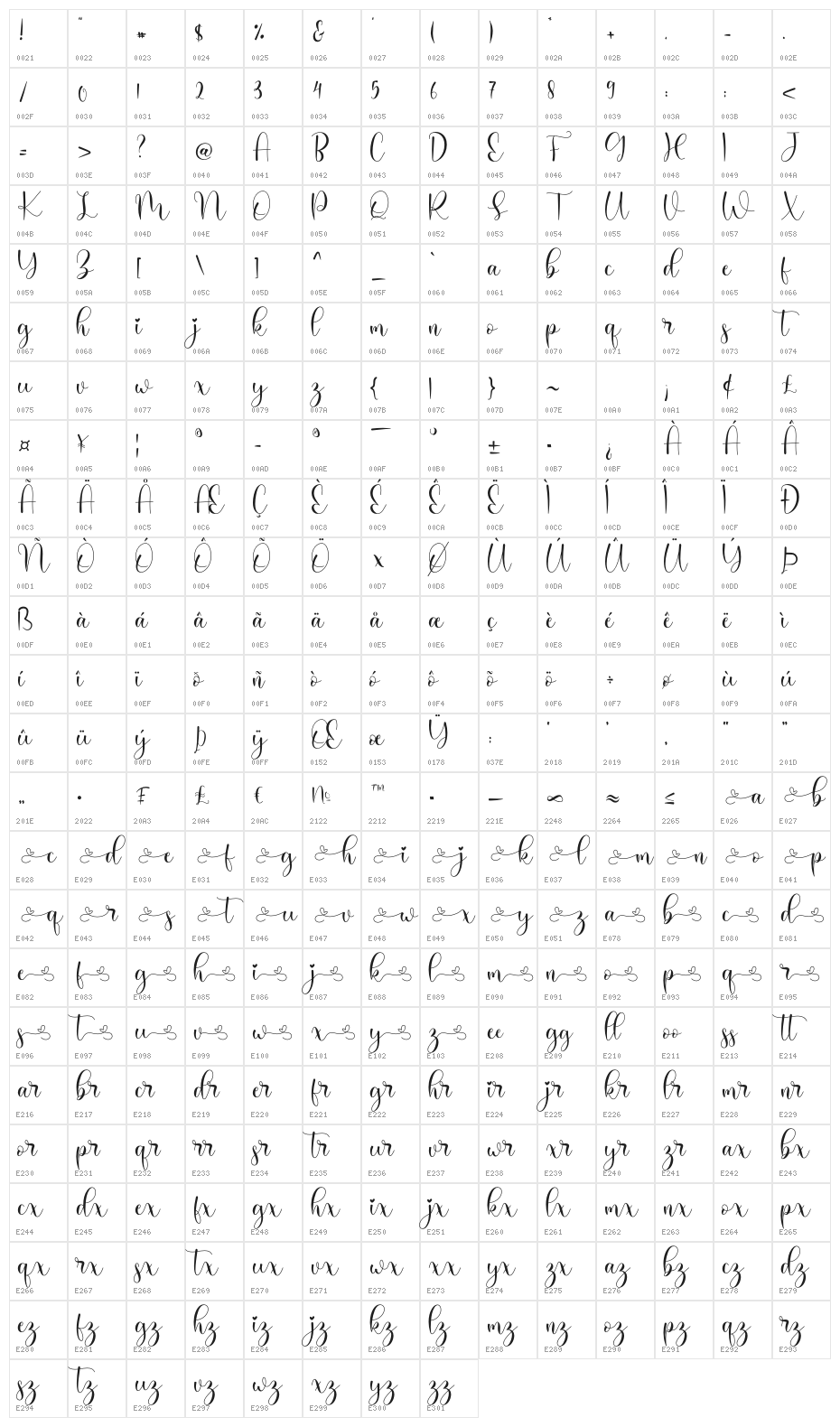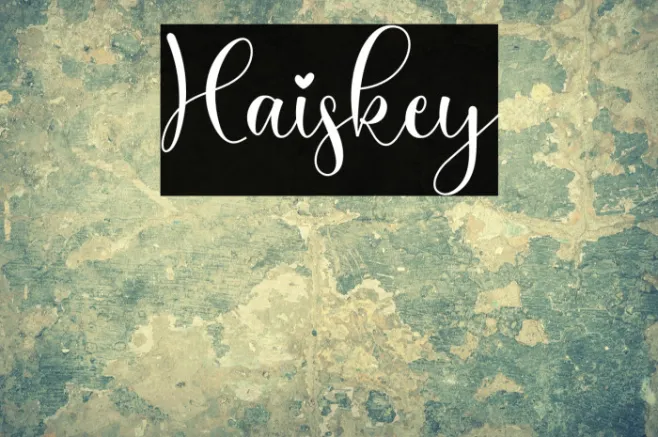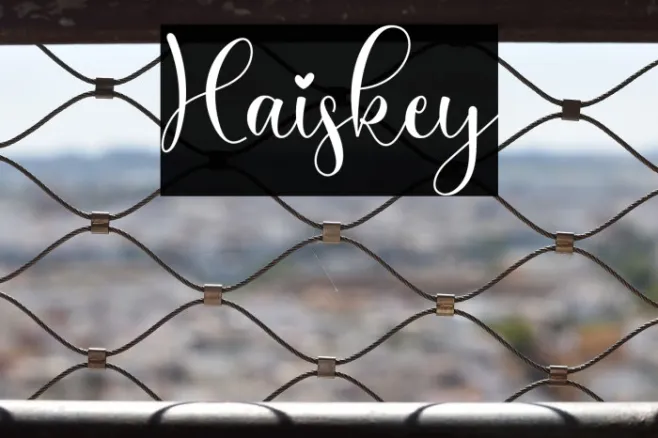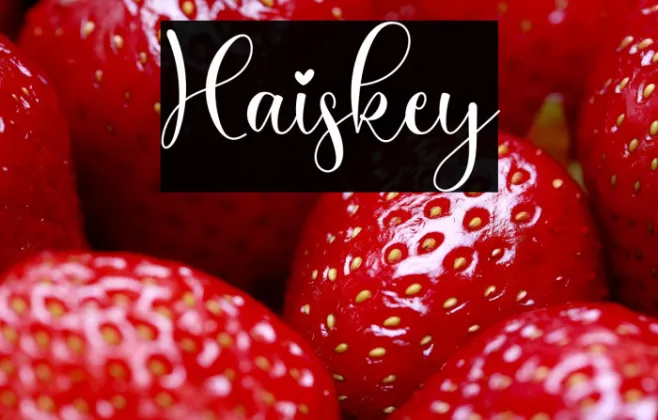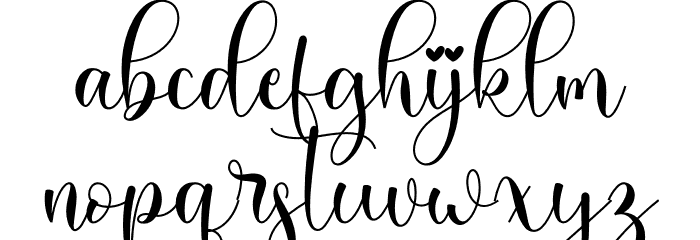
Haiskey Font
Haiskey Description
This font features an elegant, flowing script style with a modern twist. The letters are interconnected with smooth, sweeping curves that give it a graceful and sophisticated appearance. The uppercase letters are tall and slender, while the lowercase letters maintain a consistent flow, enhancing readability. The numerals are distinct and maintain the same fluidity as the letters, making them visually cohesive. Special characters are creatively integrated, maintaining the overall aesthetic. This font is perfect for projects that require a touch of elegance and style.
| Proposed Projects | Ideal for wedding invitations, branding, greeting cards, and elegant logo designs. |